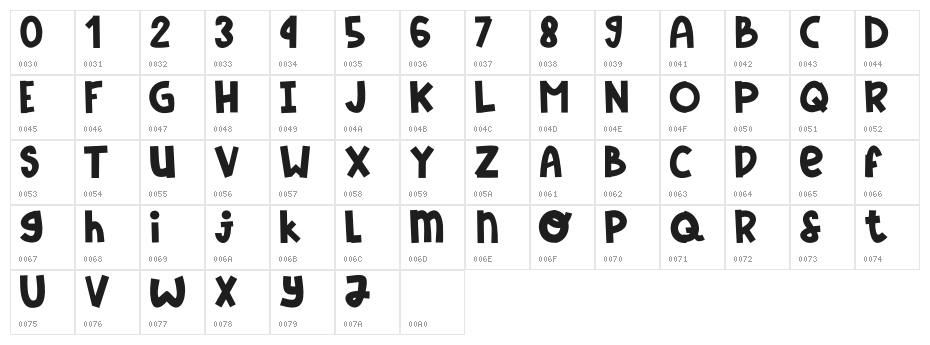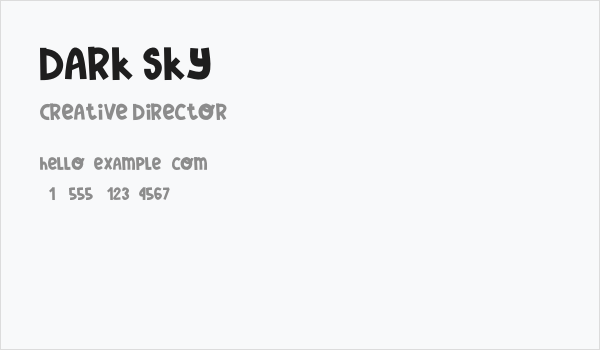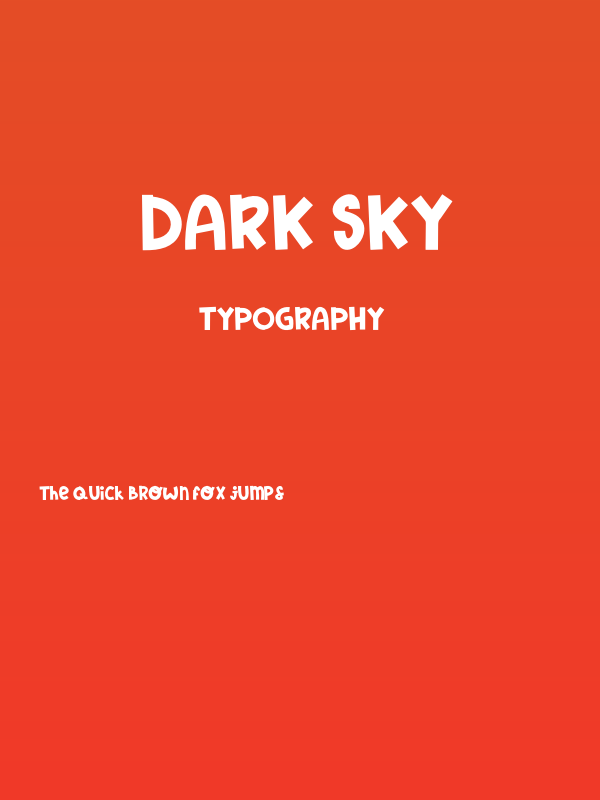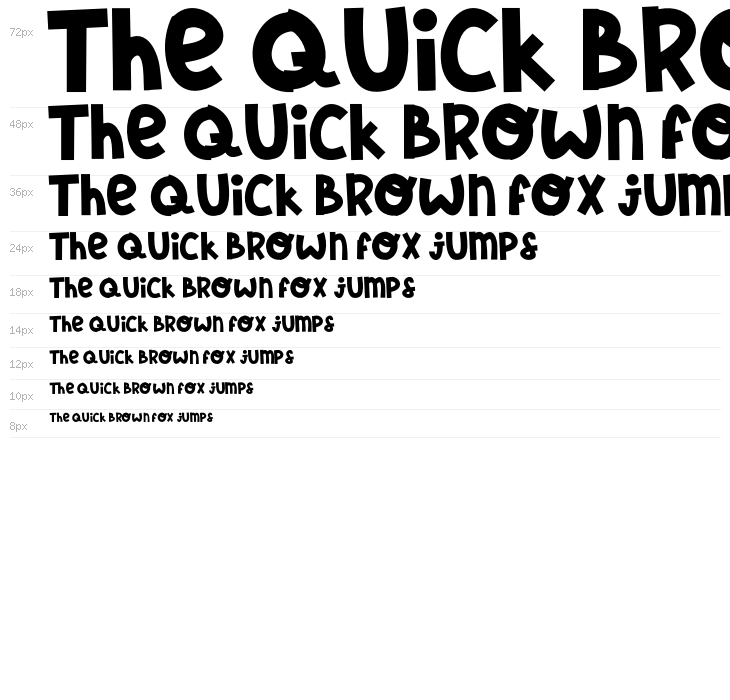
Dark Sky Font
Dark Sky Description
This playful and bold font features a unique, hand-drawn style with exaggerated curves and a whimsical appearance. The characters are thick and rounded, giving them a friendly and approachable look. The uppercase and lowercase letters maintain a consistent style, with some letters having distinctive, quirky elements that add to the font's charm. The numbers are equally bold and maintain the same playful aesthetic. This font is perfect for projects that require a fun and informal touch, such as children's books, posters, or playful branding.
| Use Case | Headlines, Posters, Branding |
| Proposed Projects | Ideal for children's books, playful branding, posters, and informal designs. |